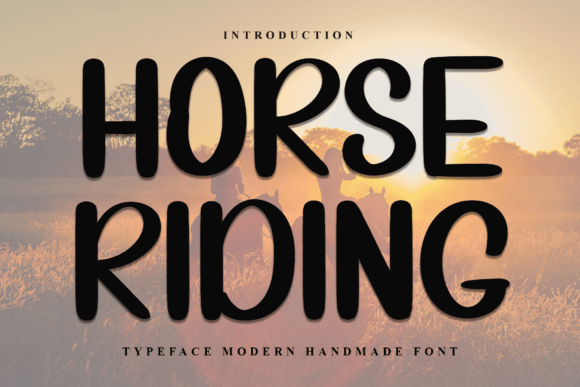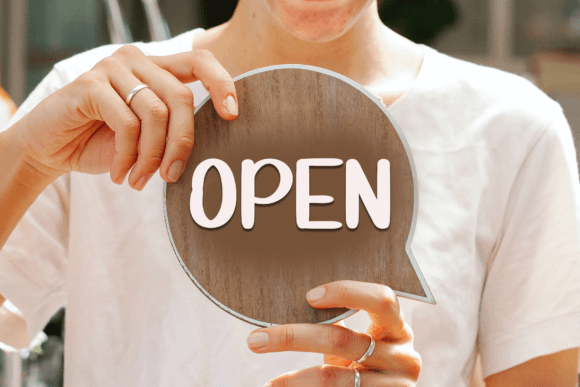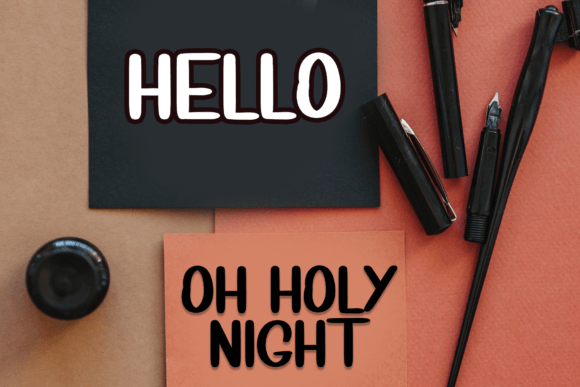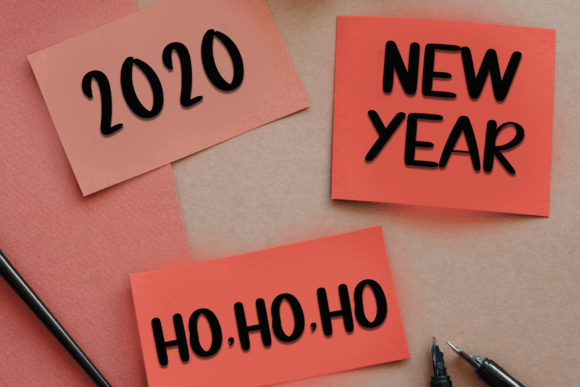
Horse Riding Font
About the Horse Riding Font
The wait is over! The incredible Horse Riding Font is now available for your design toolkit. Horse Riding is a festive and merry typeface that captures the spirit of the holiday season. With its decorative elements and whimsical flair, it adds a touch of enchantment to your designs. Perfect for greeting cards, gift tags, and holiday-themed projects, this font brings a cheerful and nostalgic ambiance to your words. Let your typography shine with the magic of Christmas Font!
Its playful, whimsical nature makes it ideal for projects requiring a festive and lighthearted feel, such as children’s books, holiday packaging, or branding for companies focused on fun and celebration. Avoid using it for large blocks of body text or UI elements; its decorative elements can hinder readability in smaller sizes or extended use.
Consider pairing Horse Riding with a clean sans-serif like Open Sans for body copy or a more geometric sans-serif like Futura for a modern contrast. For a more traditional feel, a serif like Garamond could provide elegant balance.
The font’s overall personality is undeniably cheerful and nostalgic, making it a strong choice for brands aiming for a friendly, approachable image. Avoid using it for projects requiring sophistication or seriousness; its decorative nature leans towards informal applications.
Horse Riding Font Usage Examples
Horse Riding Font Example